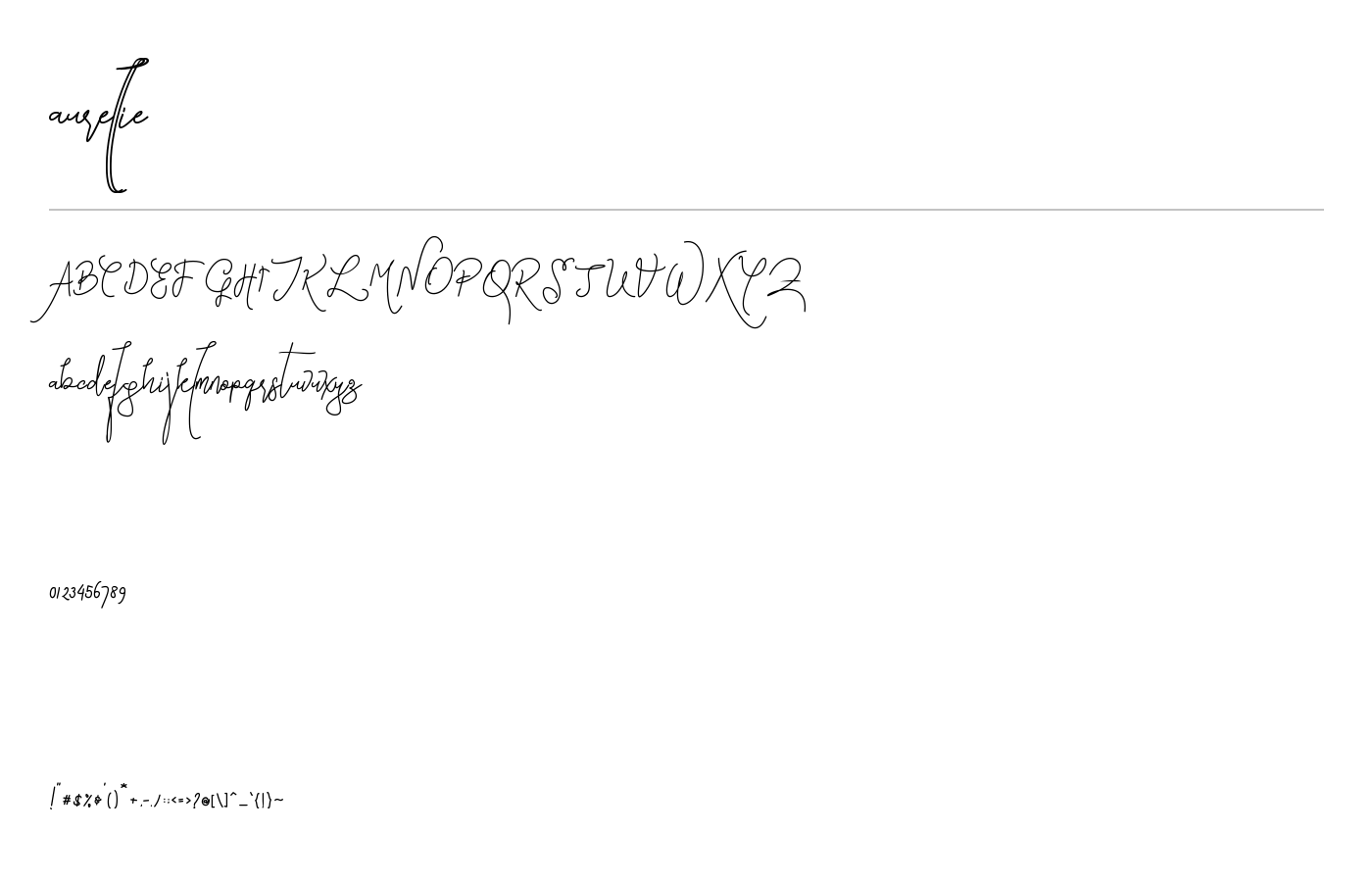
Aurellie is a delicate, handwritten script font characterized by its elegant, flowing lines and tall, slender letterforms. Its fine strokes and graceful curves create a sophisticated and artistic feel, making it ideal for stylish branding, invitations, and fashion-related designs where a personal, refined touch is desired. This font works best in decorative or headline use due to its ornate nature and light stroke weight.
aurellie Font
About aurellie Font
| Designer | Tiny Hand Letter 2021 |